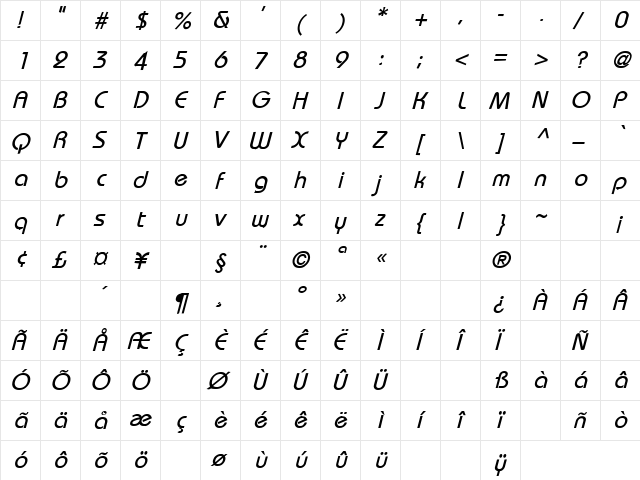
China Grove 1 Italic Font Preview
China Grove 1 Italic
Design Context for China Grove 1 Typeface
China Grove 1 takes a measured approach to typography — its balanced proportions and neutral character make it a reliable workhorse for both digital and print work. The dynamic lean of this cut emphasises speed and emphasis in any layout.
Pro Tip: Use China Grove 1 for emphasis, pull quotes, and subheadings where its slanted energy can add rhythm to the layout.